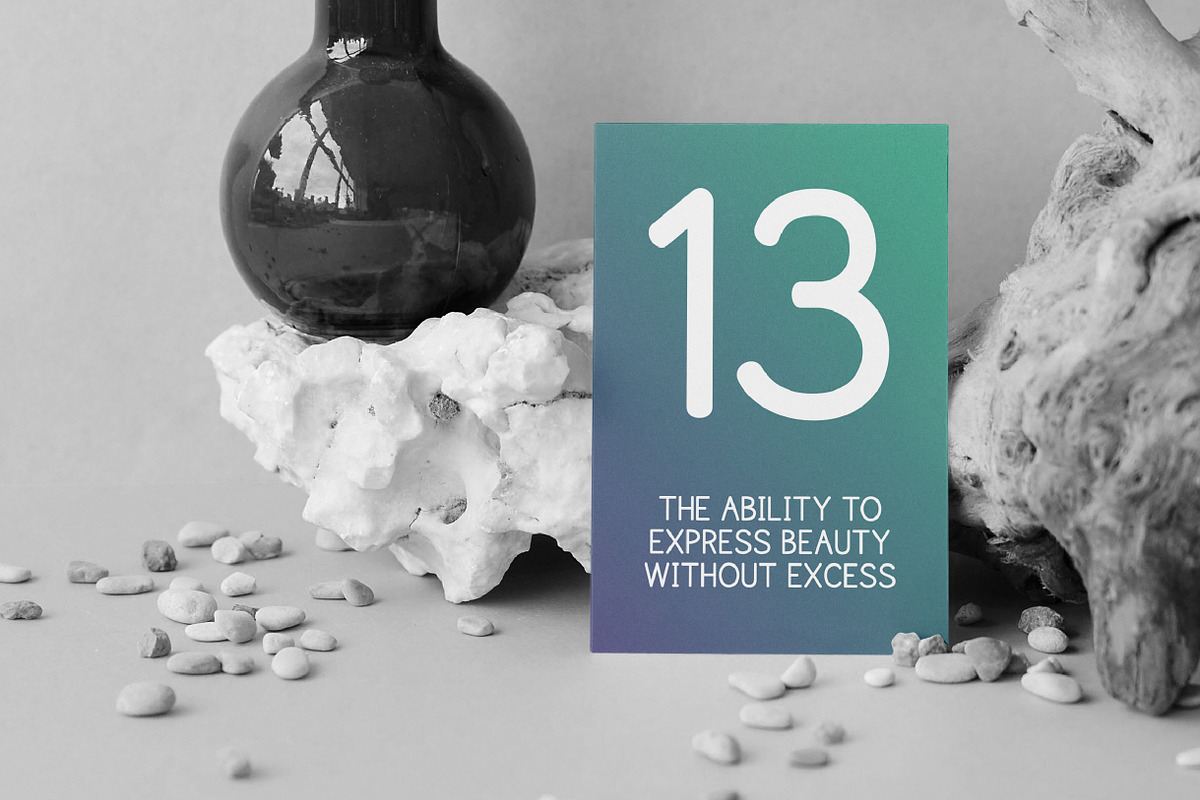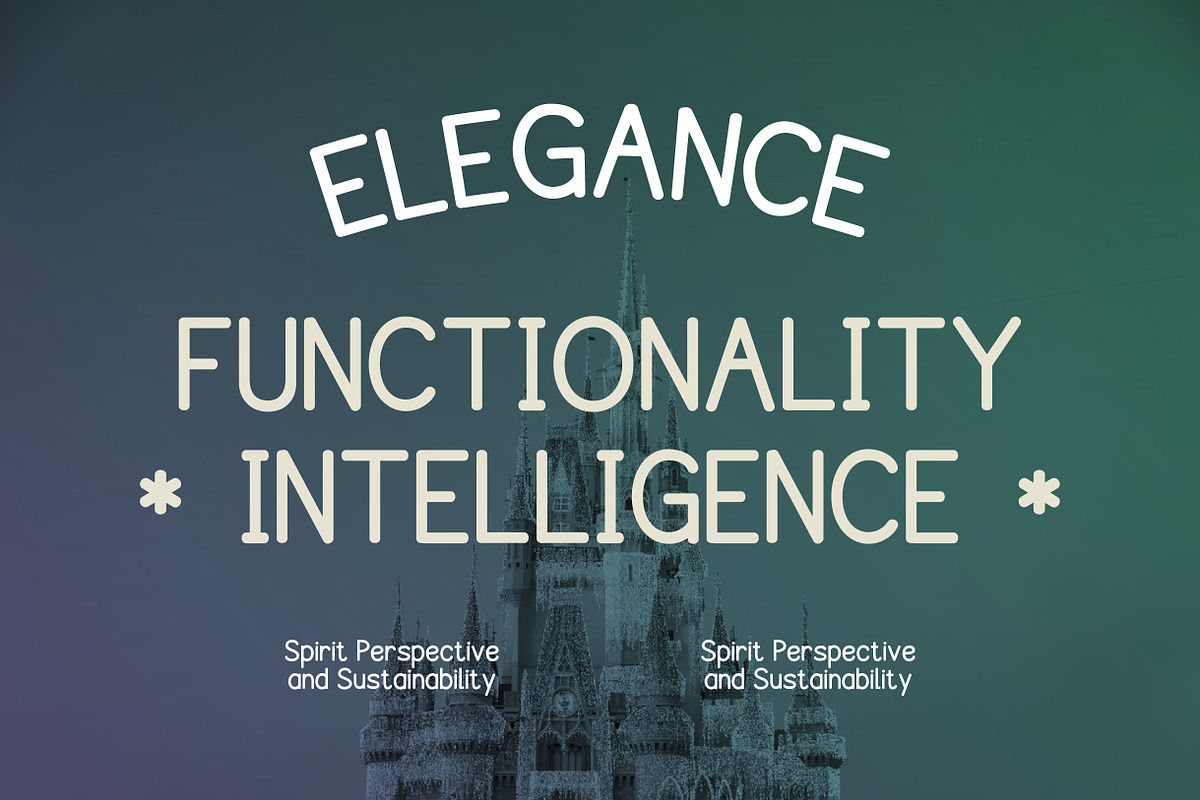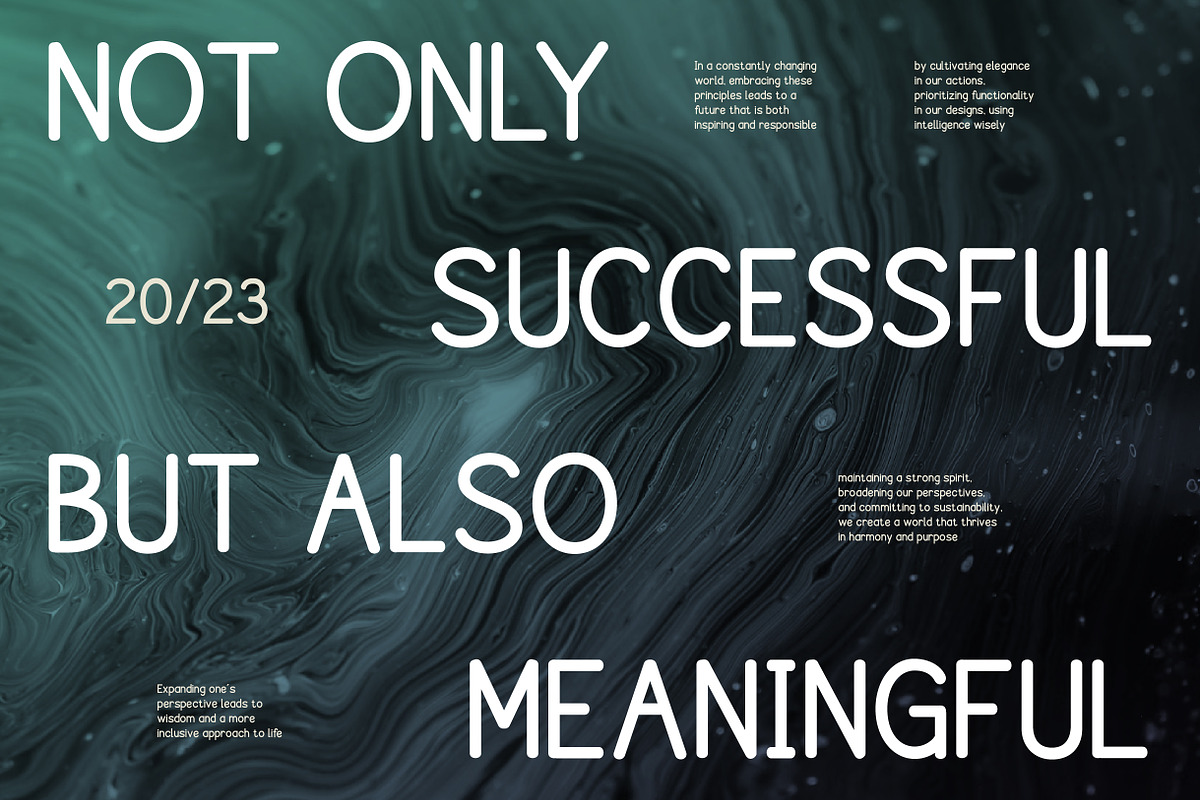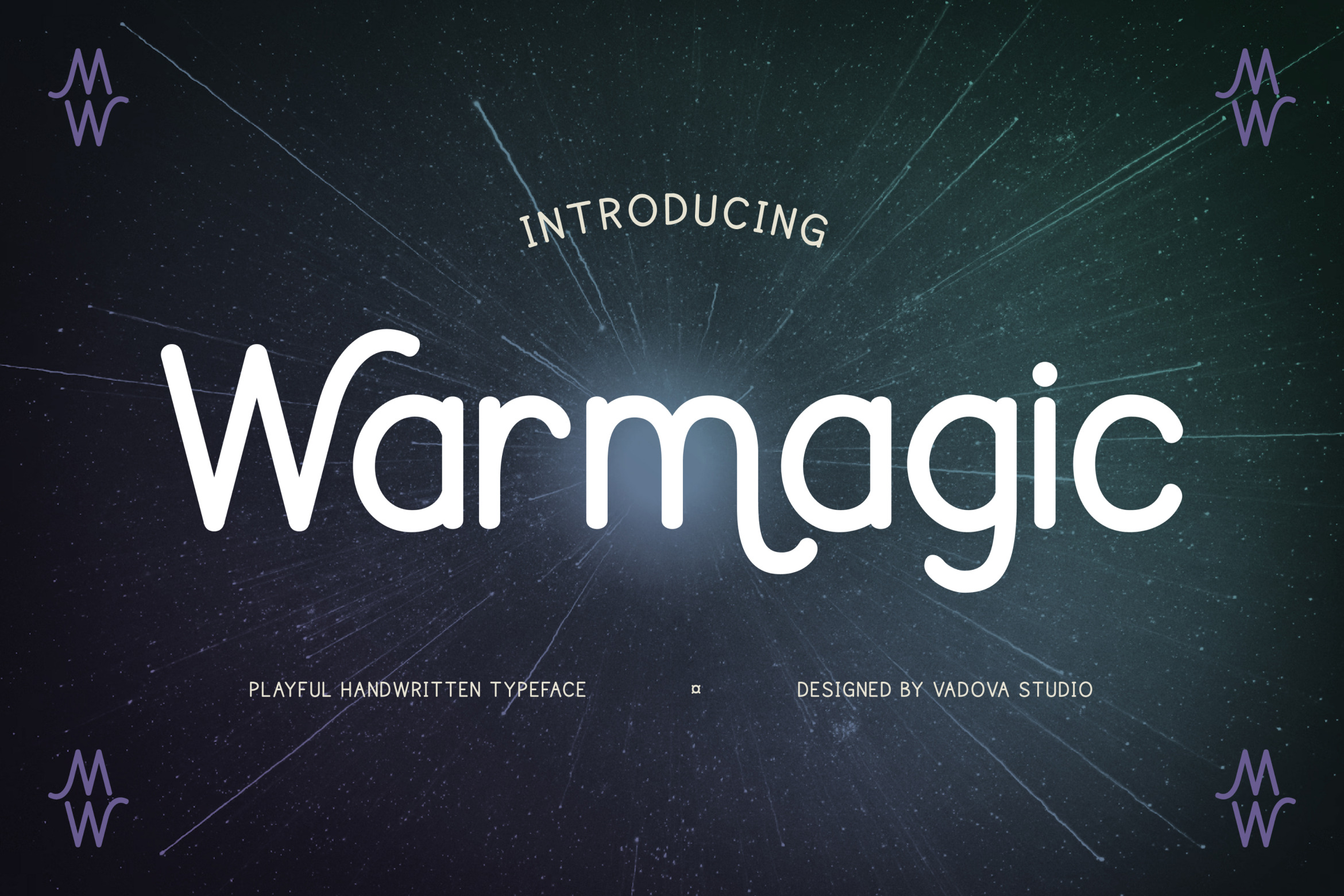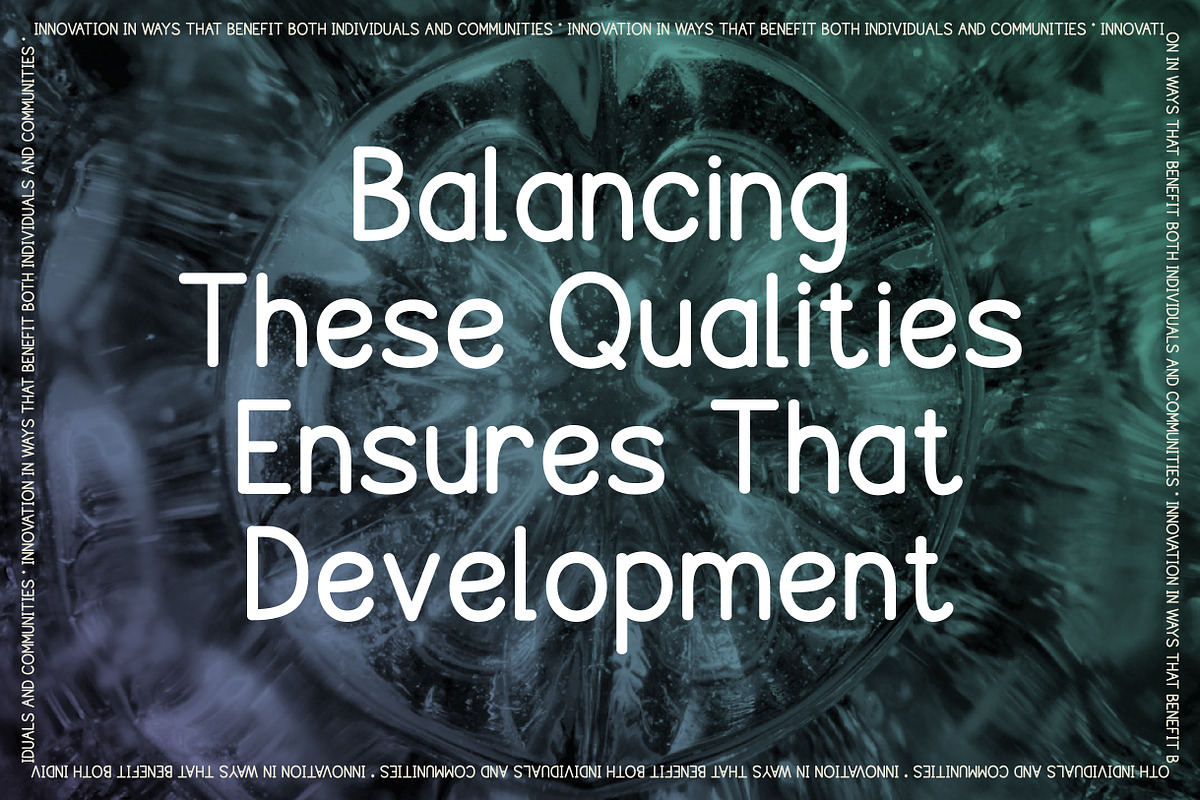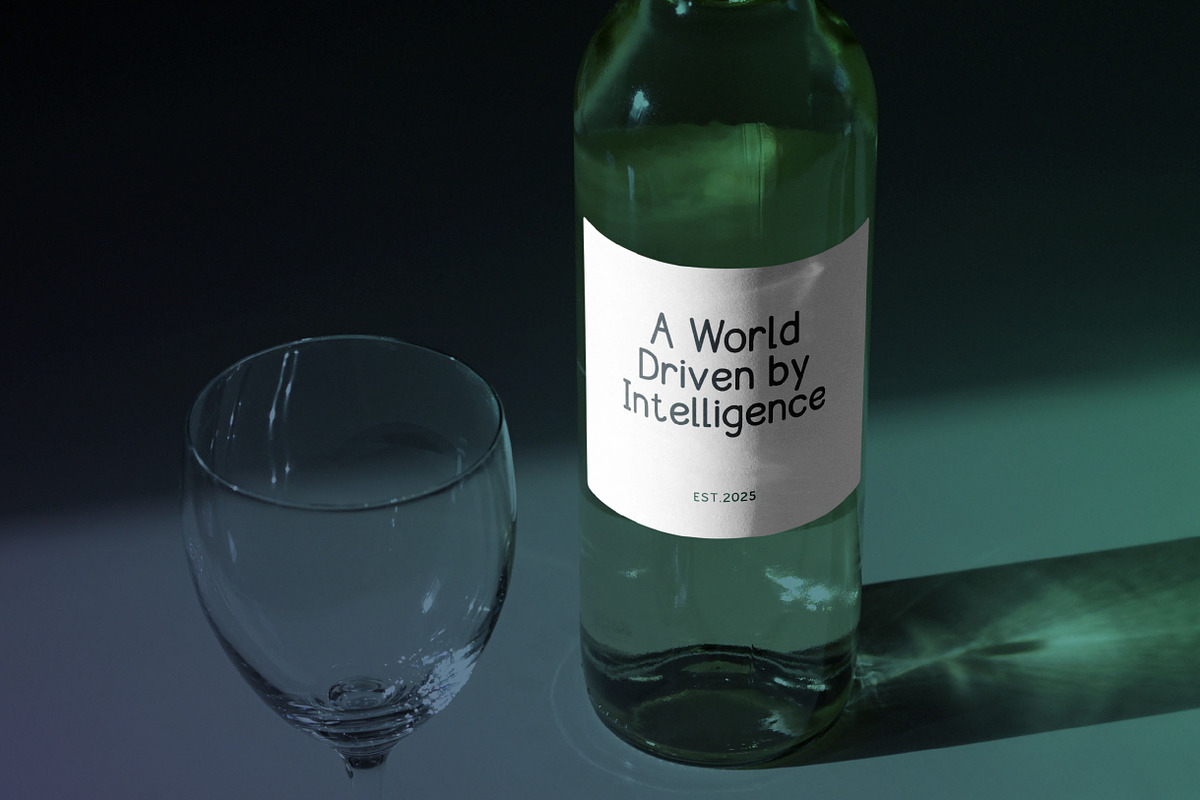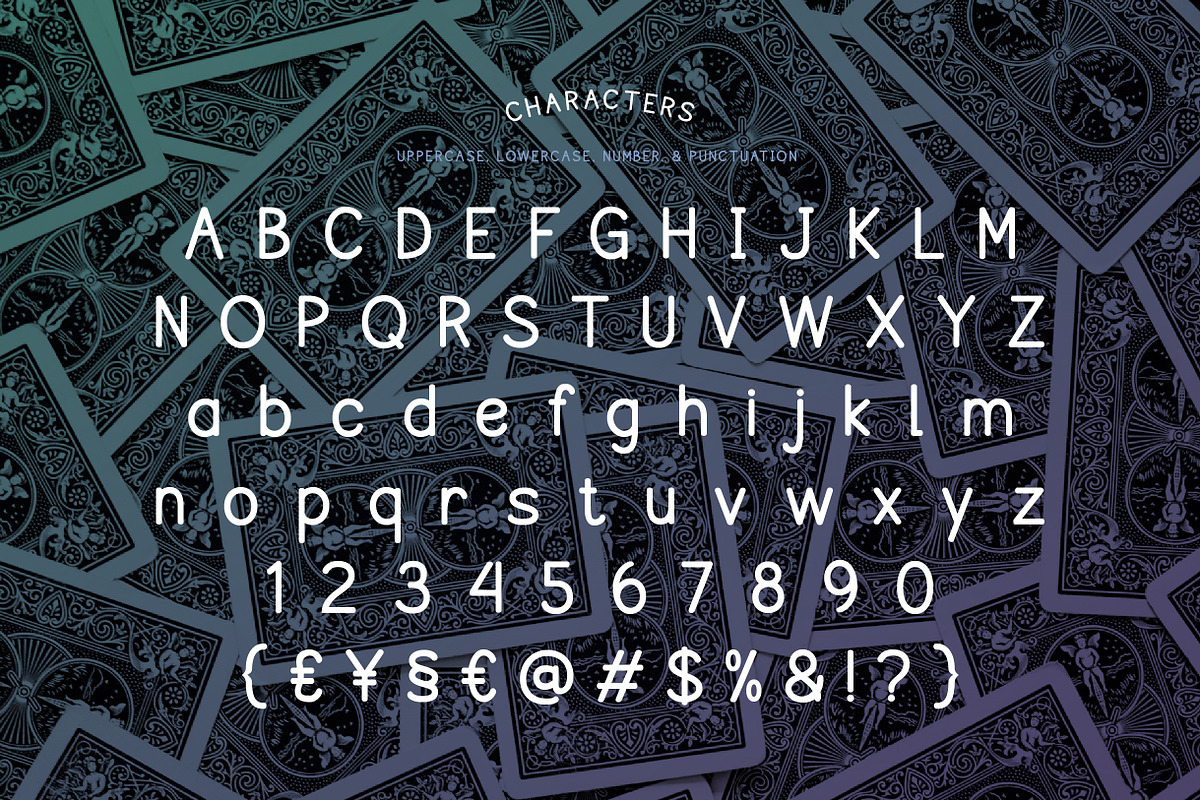
Warmagic – Playful Handwritten Font
Warmagic is a playful handwritten typeface that brings a spark of joy and creativity to any design. With its rounded strokes and whimsical curves, this font captures a friendly and approachable vibe, making it perfect for projects that need warmth and personality. Its letterforms balance casual spontaneity with clean readability, giving your designs a natural yet polished touch. From children’s books to Instagram posts, from packaging to greeting cards, Warmagic helps every word feel more fun and magical.
Designed for designers who want to add character without sacrificing clarity, Warmagic works seamlessly across print and digital media. Its playful energy makes it especially effective for branding that targets youthful, lifestyle, or creative markets. The font’s friendly forms instantly set a welcoming tone, ensuring your message connects on an emotional level.
Why Designers Love Warmagic:
Playful handwritten style – casual curves and rounded strokes create a friendly vibe.
Fun and versatile – perfect for children’s books, packaging, posters, and digital graphics.
Approachable design – lighthearted tone that feels human and relatable.
Clean readability – whimsical yet professional, maintaining clarity across uses.
Creative flexibility – ideal for branding, social media, DIY projects, and seasonal designs.
Best Use Cases:
Kids’ books and story titles
Social media posts and Instagram graphics
Greeting cards and invitations
Fun product packaging and labels
Posters, stickers, and merchandise
Creative lifestyle branding